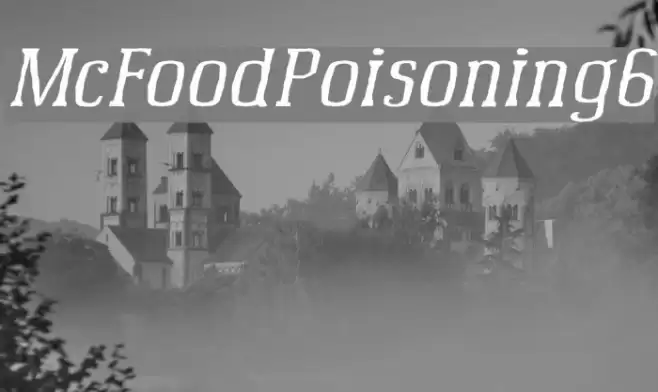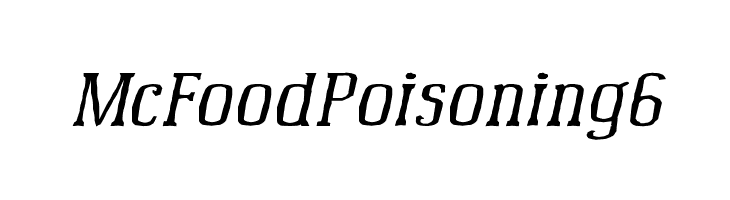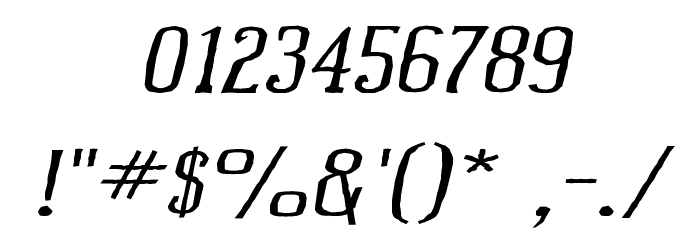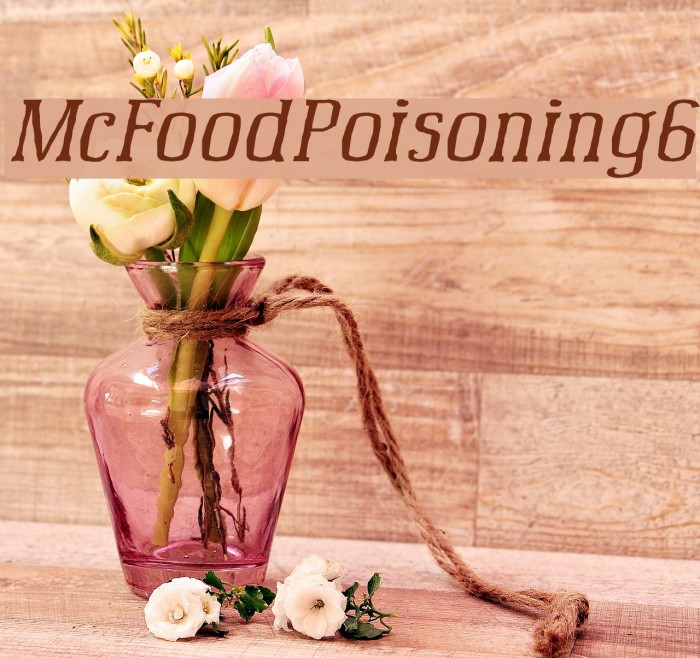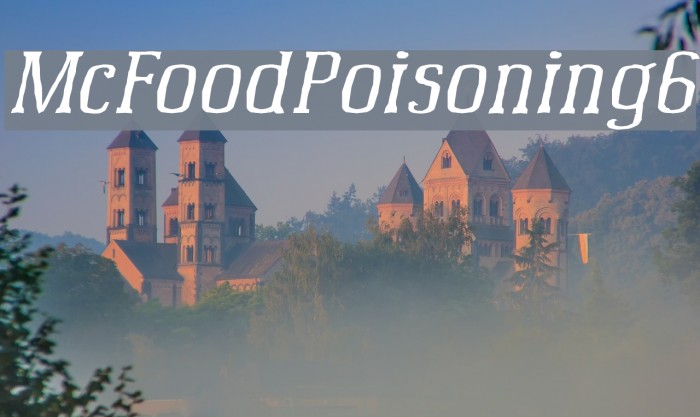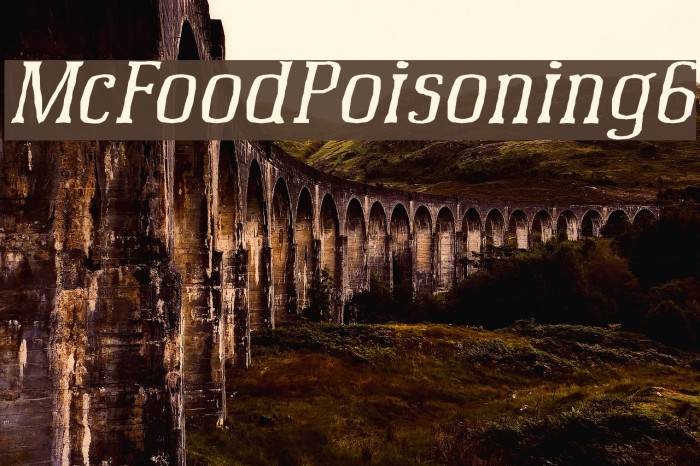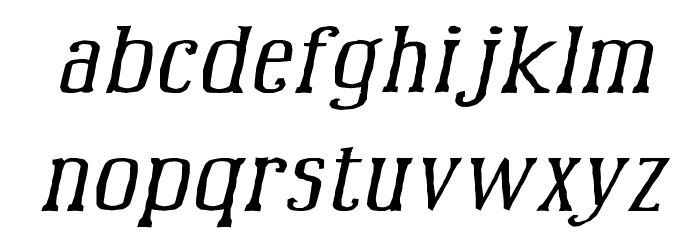
McFoodPoisoning6 Font
McFoodPoisoning6 Description
This font features a distinctive italic style with a slight slant, giving it a dynamic and energetic appearance. The characters are well-defined with moderate stroke contrast, providing a balance between readability and style. The uppercase letters are bold and commanding, while the lowercase letters maintain a consistent flow, enhancing the font's overall cohesiveness. Numerals are clear and easily distinguishable, making them suitable for various applications. Special characters are included, offering versatility for different design needs. The font's unique style makes it suitable for projects that require a touch of elegance and flair.
A dynamic italic font with moderate contrast and a distinctive style from Uncategorized fonts.